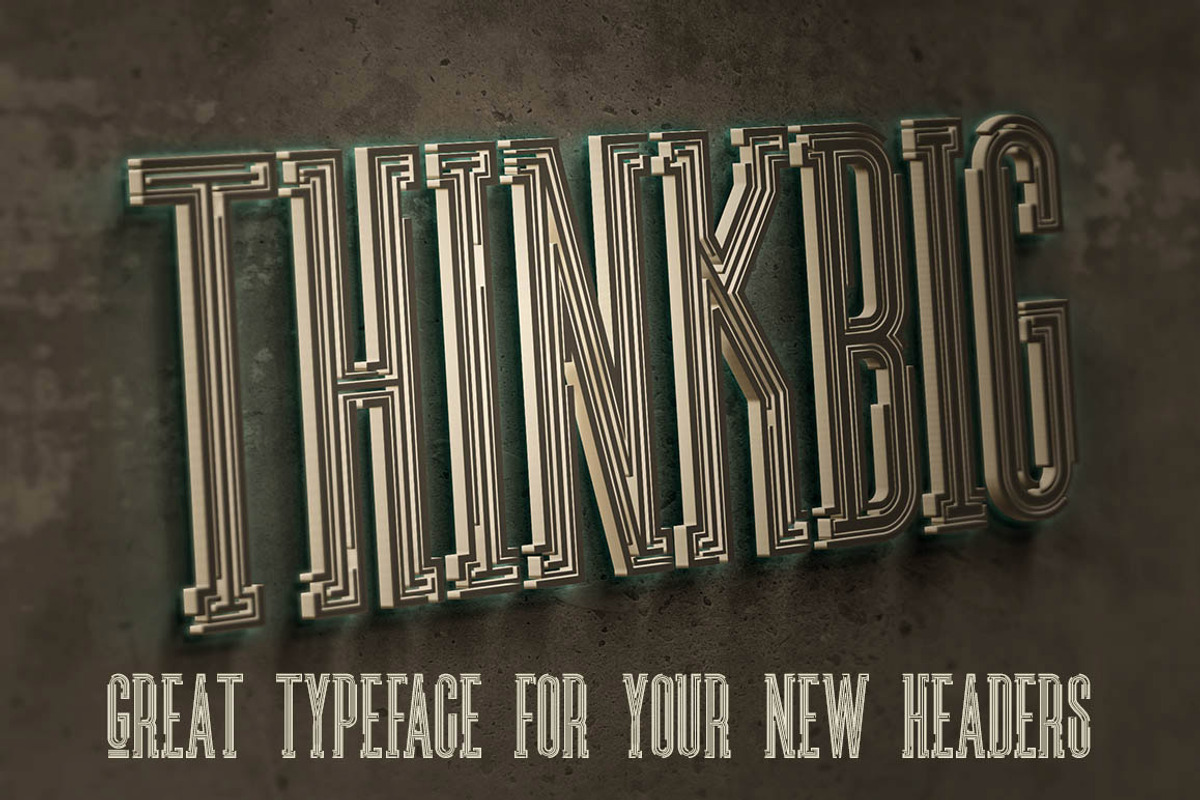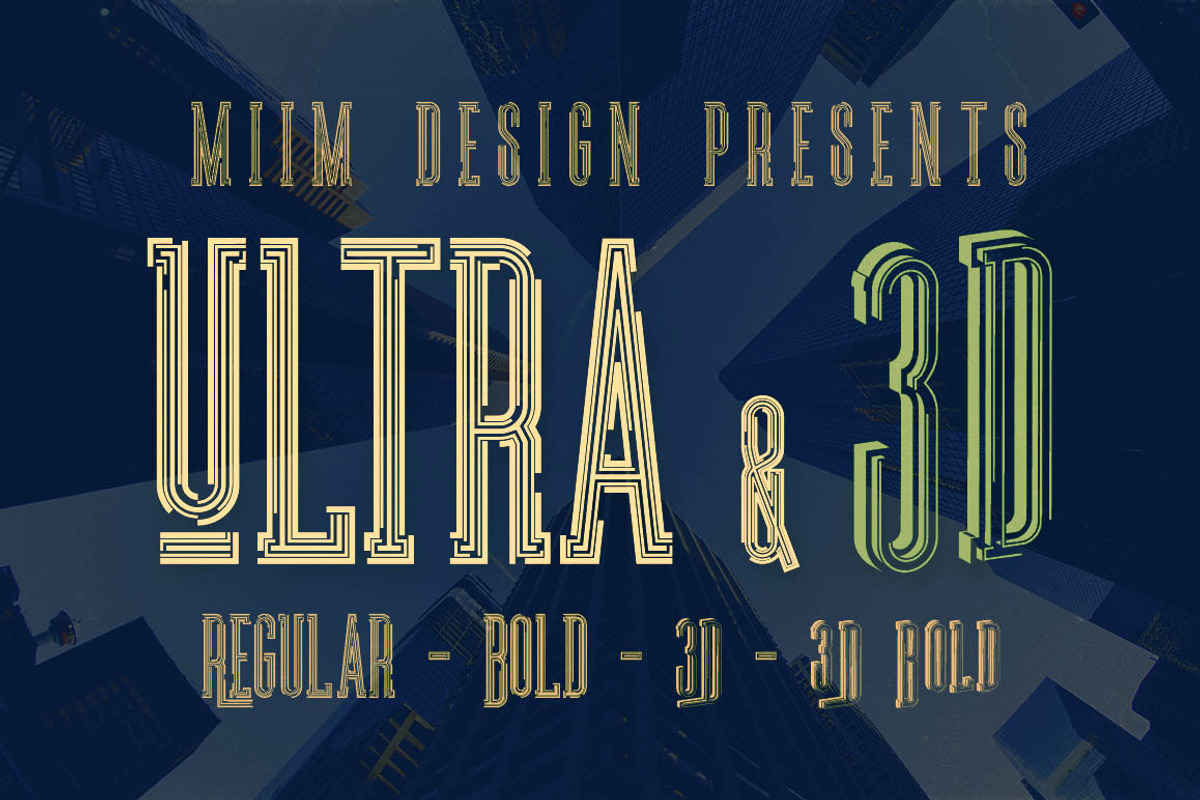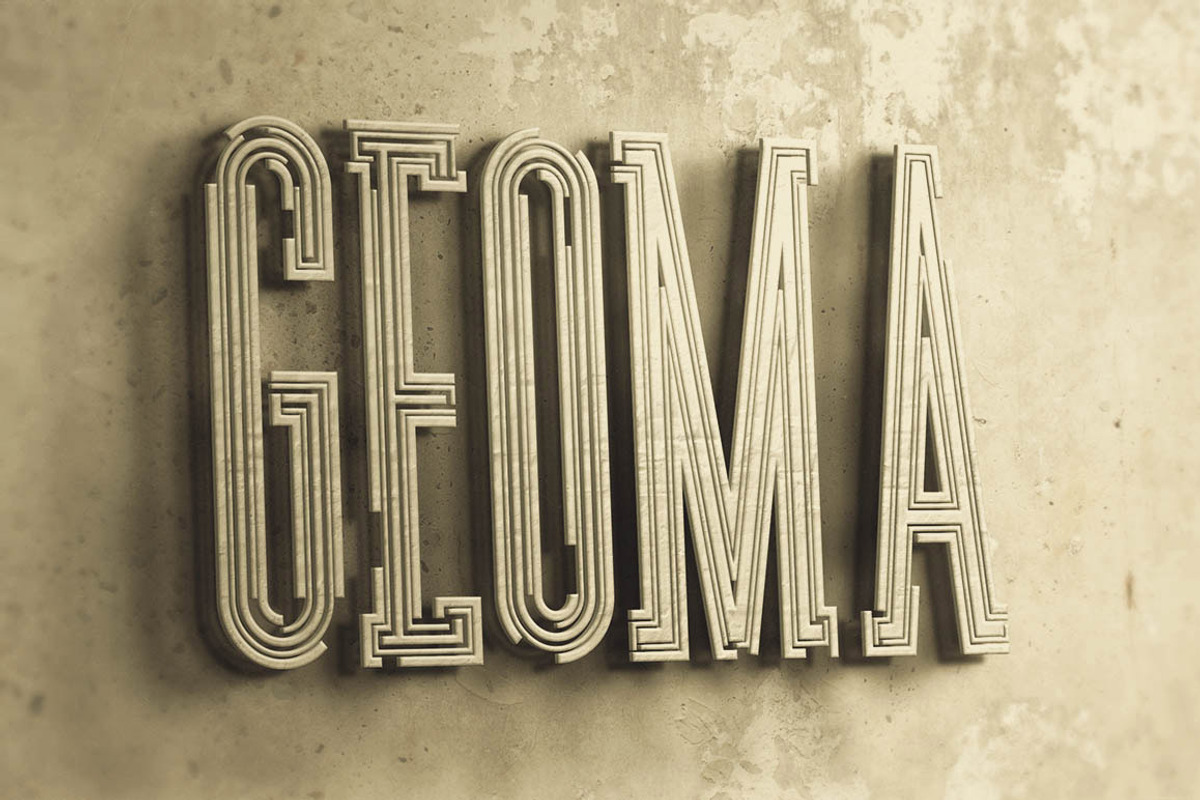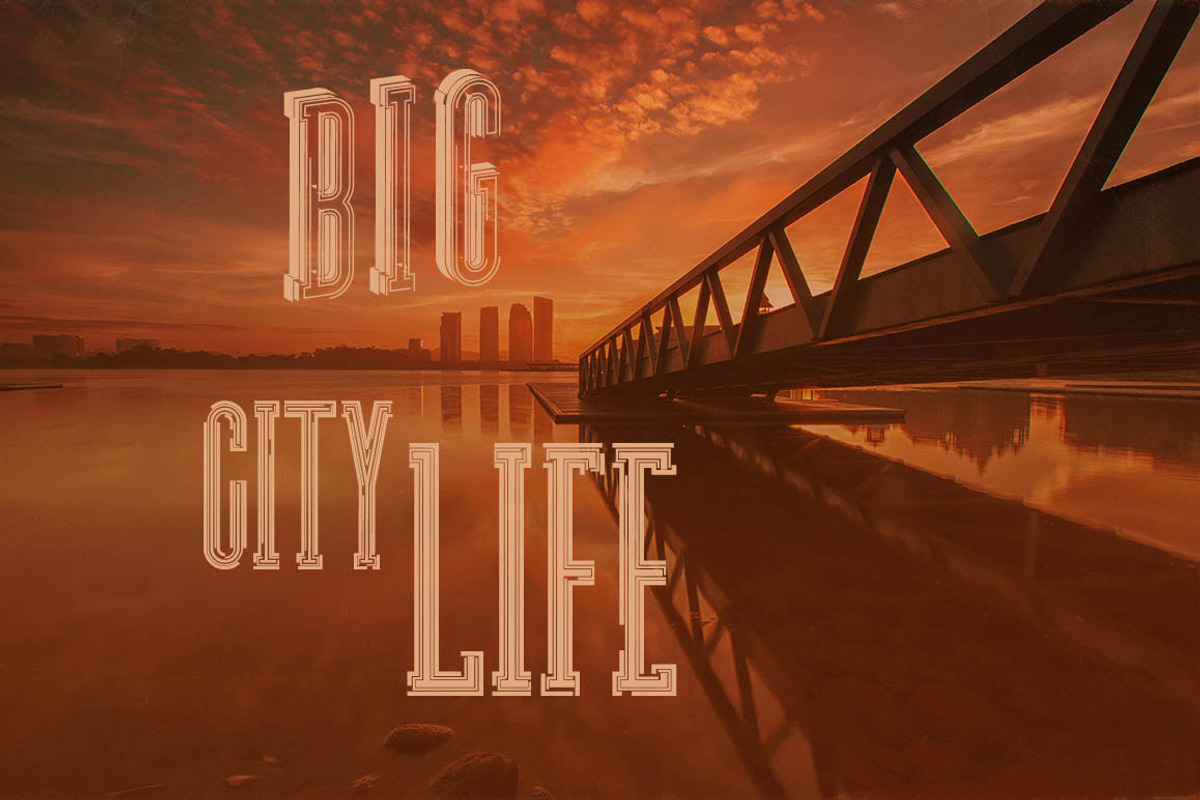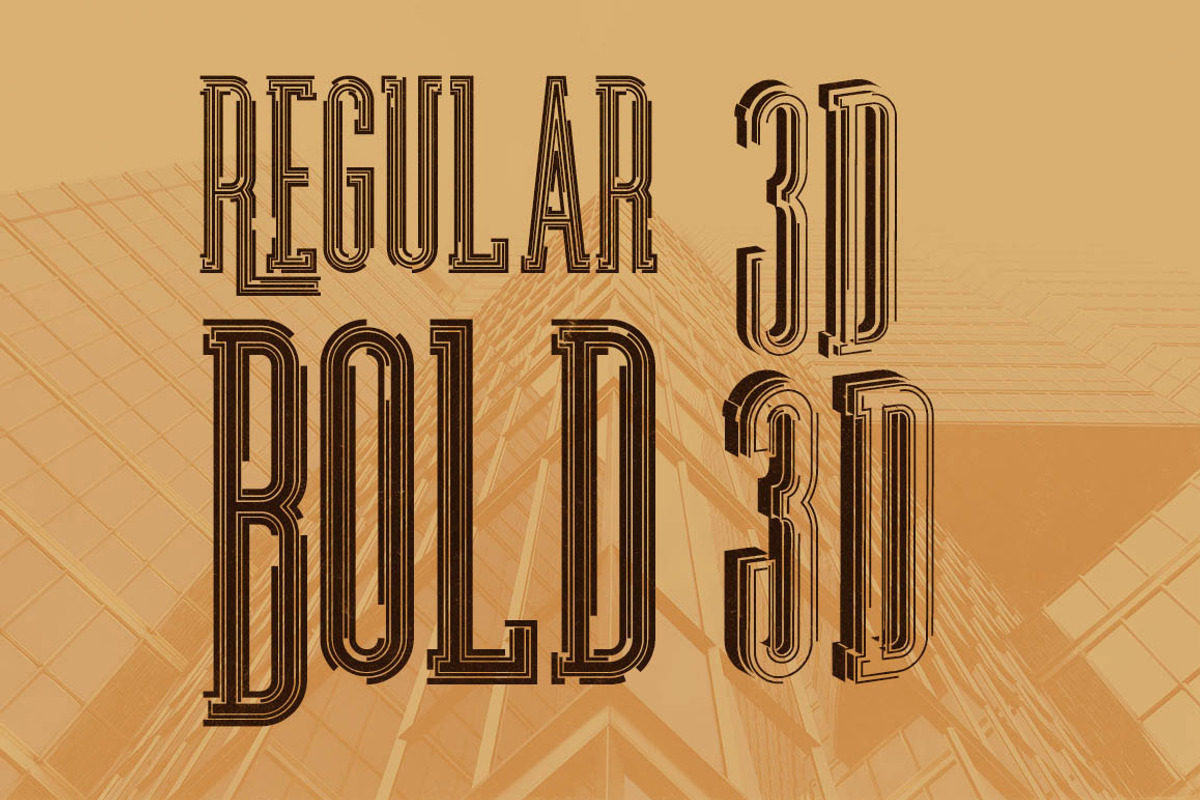
Ultra - Modern Font
Ultra - Modern Font by MIIM is a font selected for branding, posters, packaging, typography.
Why Ultra - Modern Font is worth a look
Ultra - Modern Font by MIIM fits naturally into Branding, posters, packaging, typography.